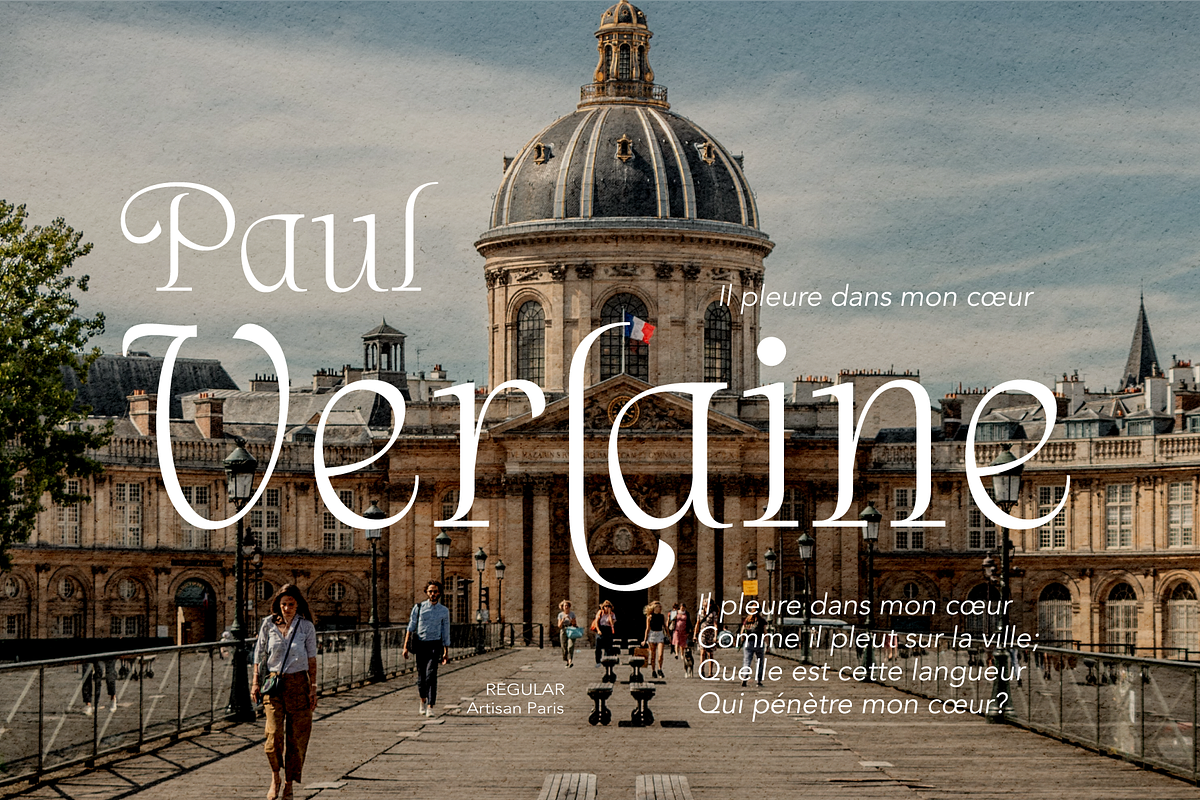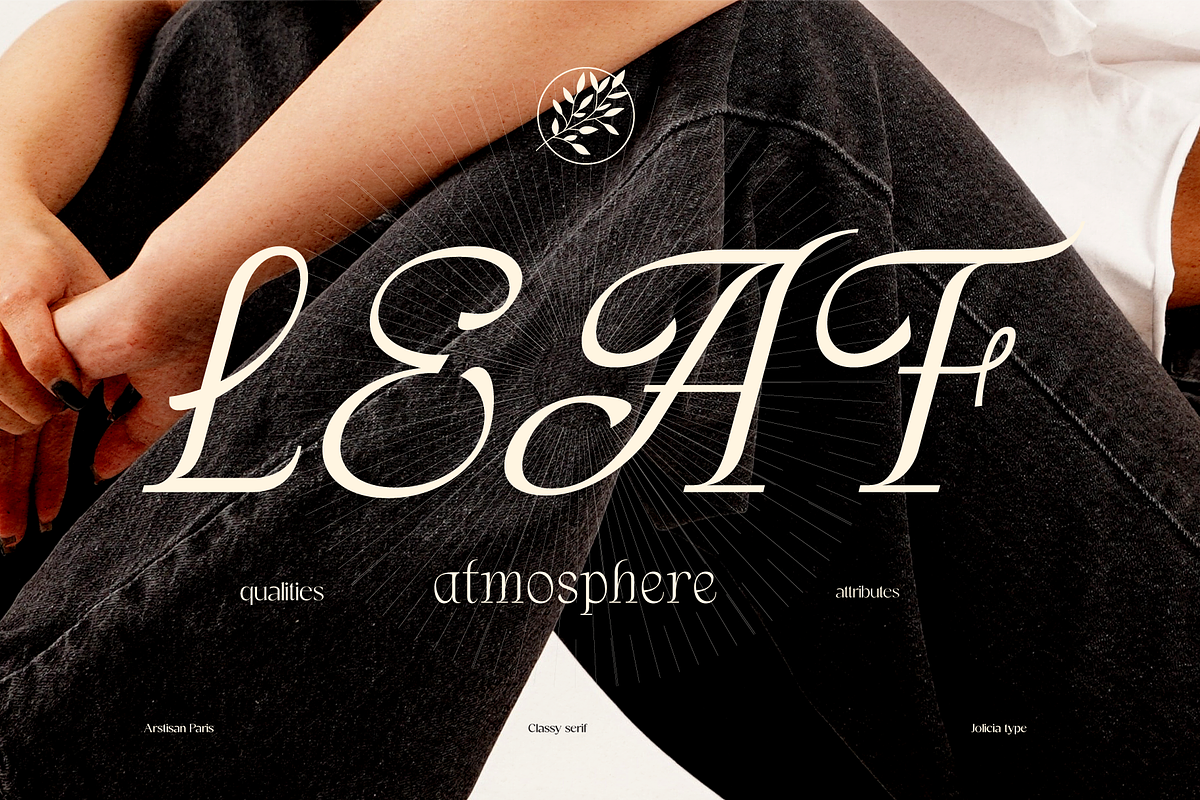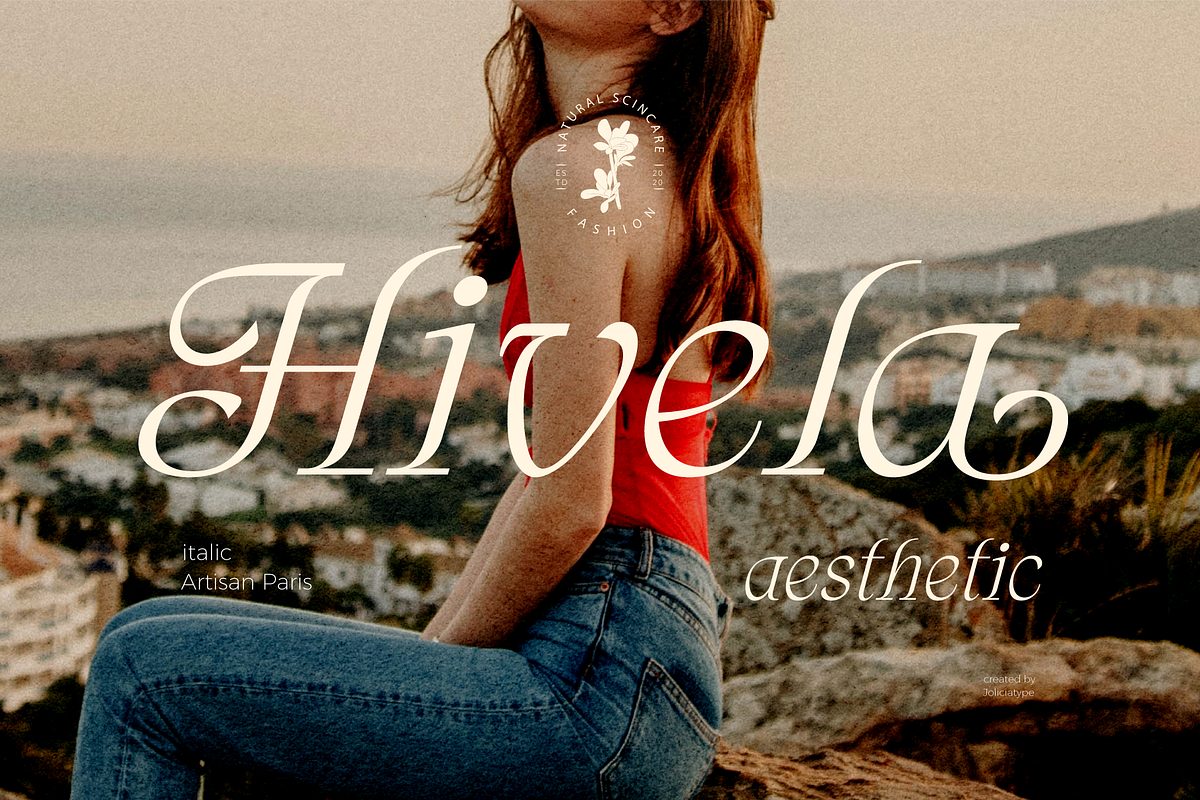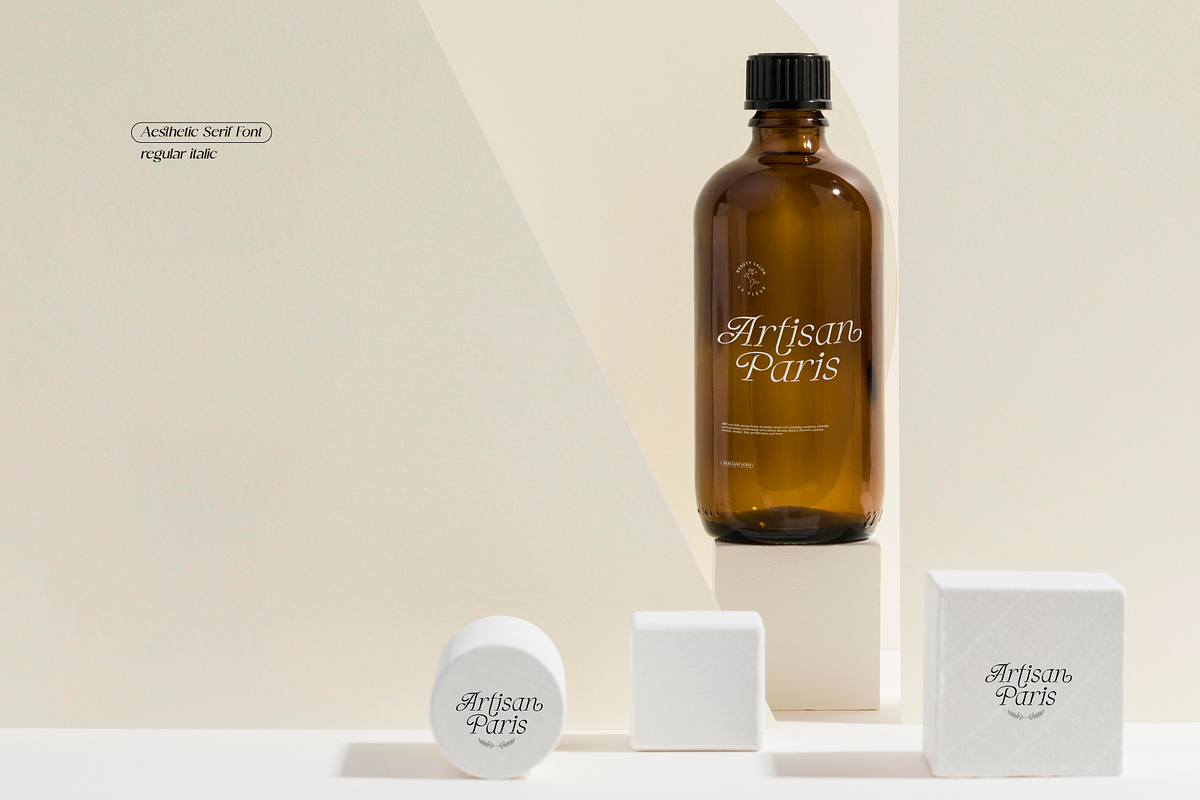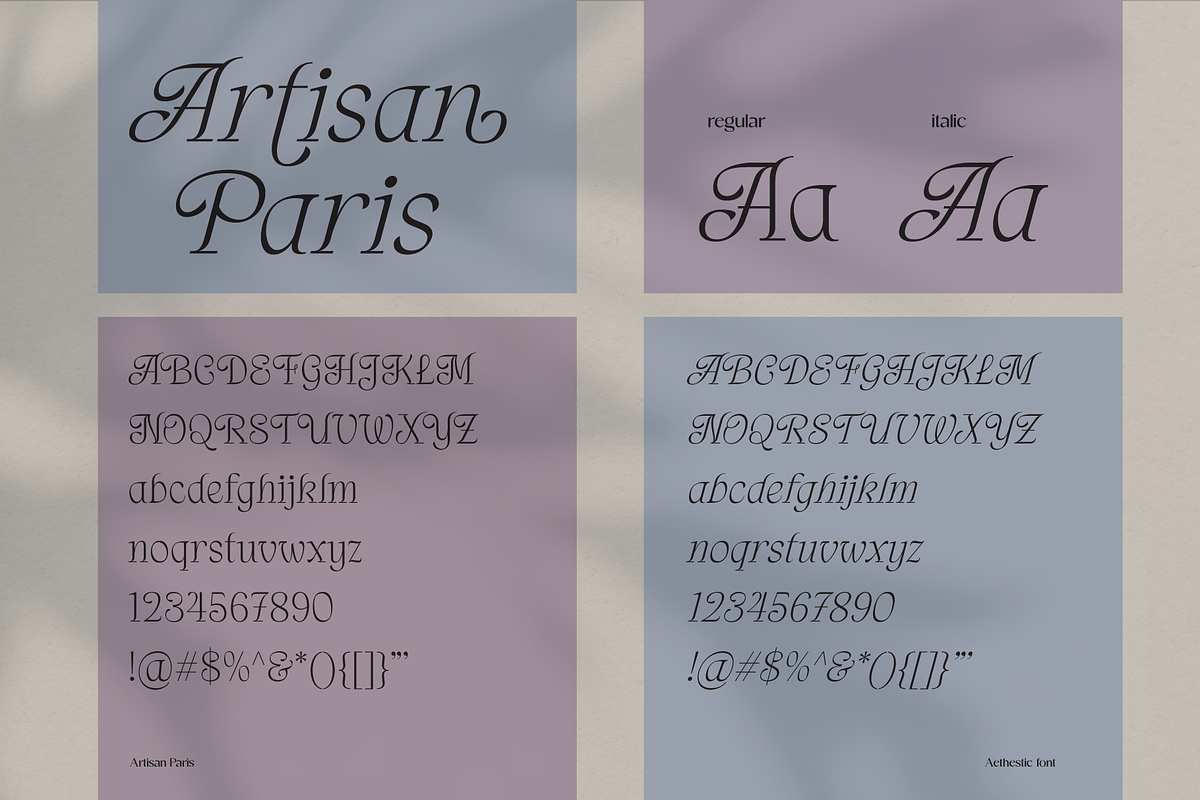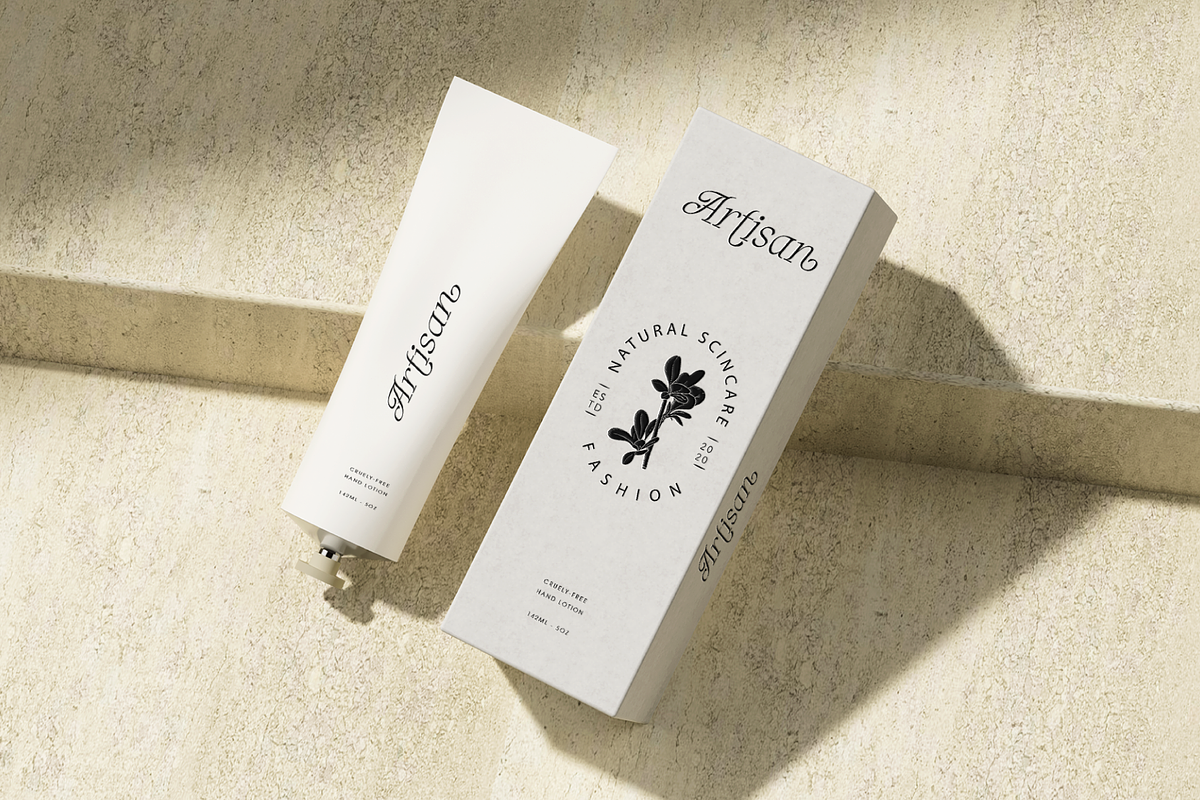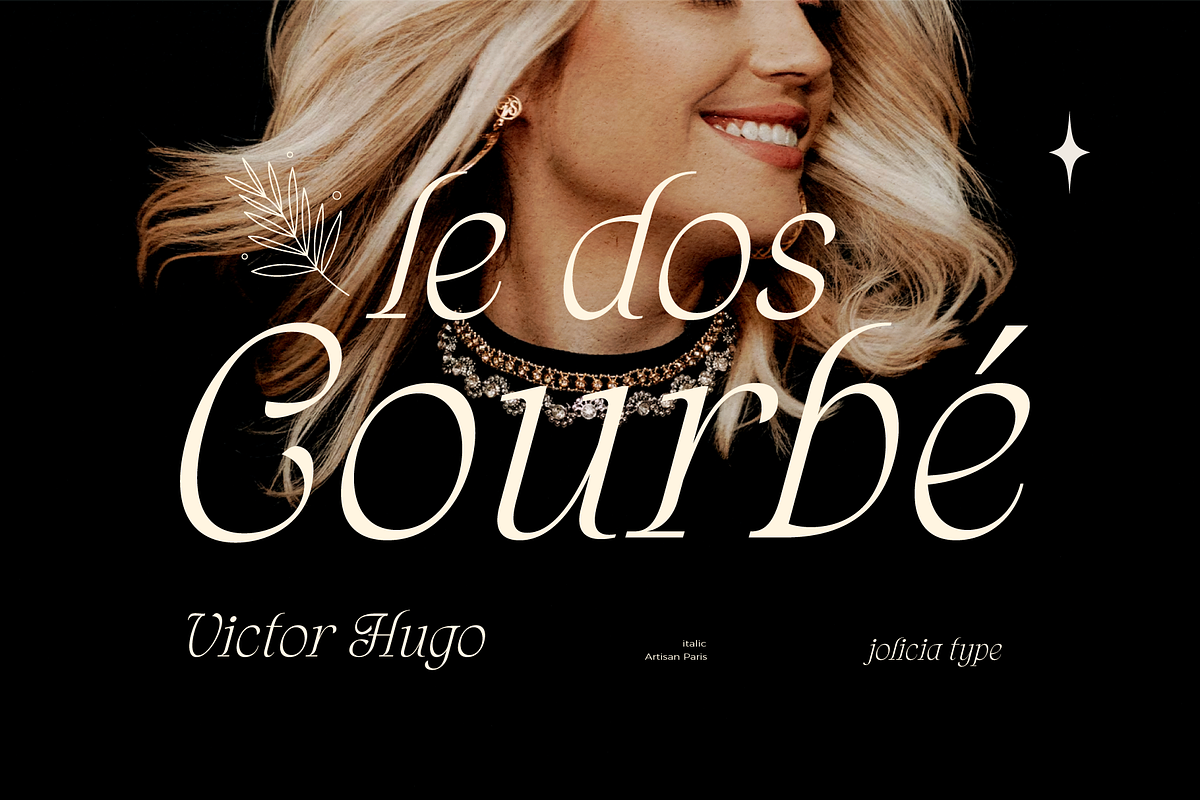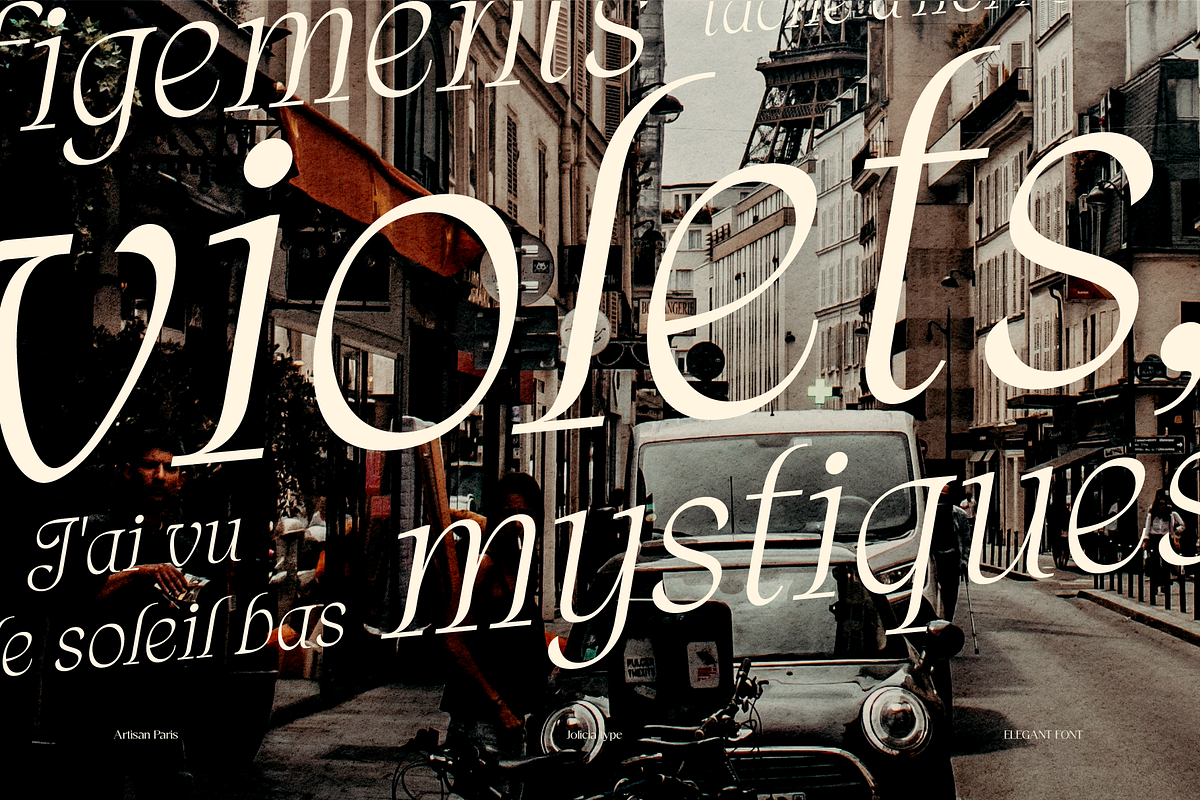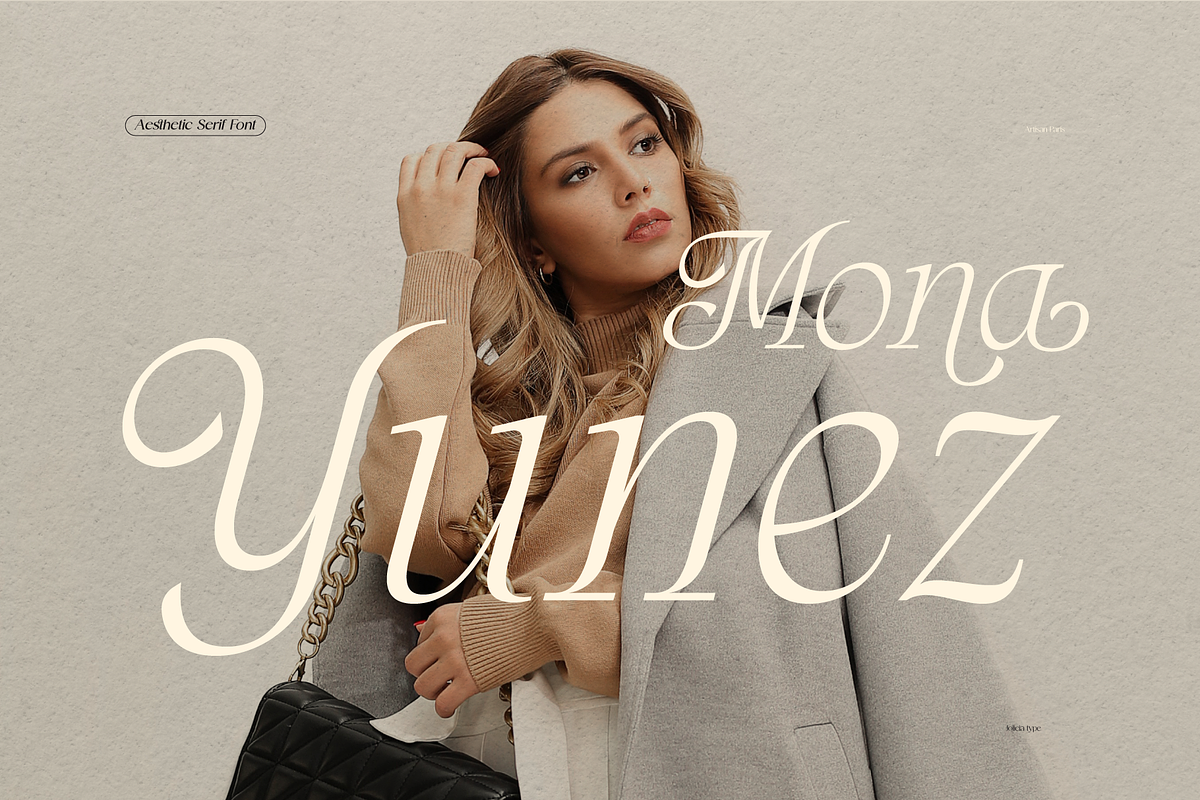
Artisan Paris | Display Font
Artisan Paris, a true embodiment of Parisian finesse and grace, is a mesmerizing display font crafted with a delicate and aesthetic feminine style.
Characteristics:
- Aesthetic Feminine Style: Artisan Paris showcases a refined, feminine aesthetic that speaks of sophistication and beauty. Its design embraces the elegance synonymous with Parisian artistry.
- Intricate Craftsmanship: The font is meticulously designed, with every character bearing intricate details reminiscent of the craftsmanship seen in the heart of Paris. Delicate curls and ornate elements define this font, showcasing the skilled artistry of Parisian artisans.
- Two Weights: Artisan Paris provides versatility with two distinct weights - Regular and Italic. The Regular weight exudes a balanced and poised demeanor, while the Italic weight adds a playful and dynamic touch, enhancing your creative expressions.
Usage: Artisan Paris is the font of choice when you want to infuse your designs with the grace and allure associated with Parisian artistry. Ideal for headlines, titles, branding, invitations, and any design project seeking an elegant and feminine touch.
Designer: Artisan Paris was meticulously designed by a team of dedicated artists and designers, drawing inspiration from the chic and timeless femininity of Paris. Every element in this font reflects their passion for capturing the essence of Parisian artisans.